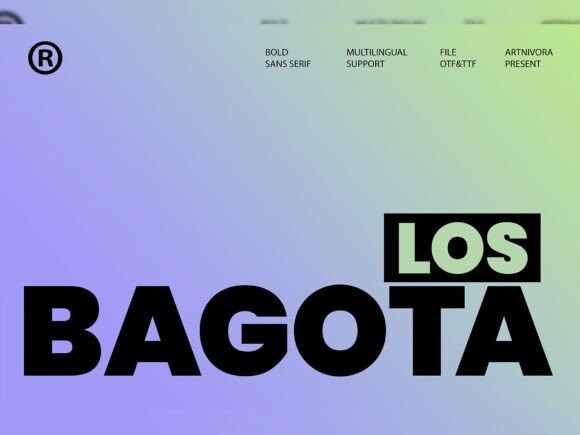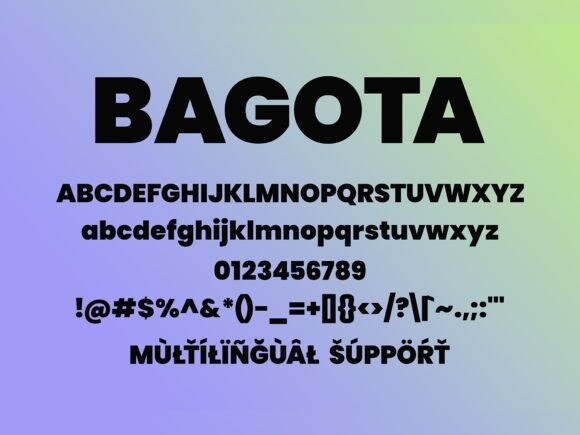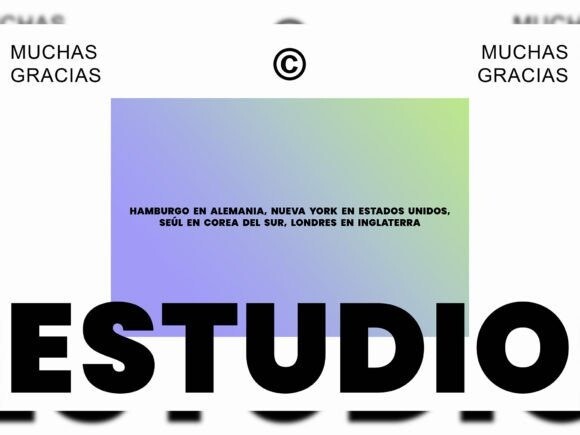
Bagota Los Font
Bagota Los Font, a simple and sans serif font. So perfect for you who needs a typeface for logo designs, magazine, social media, brochure, and many more.